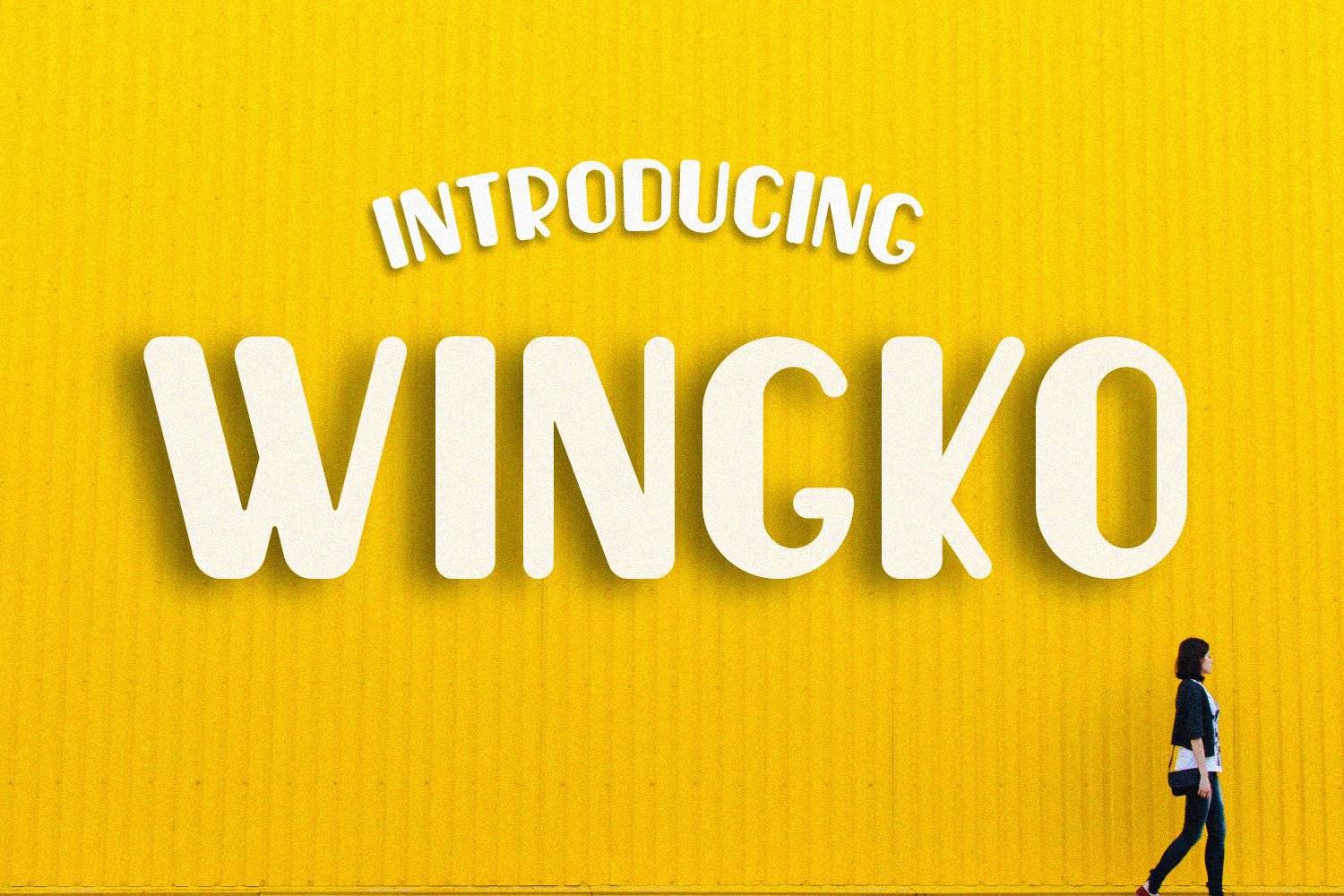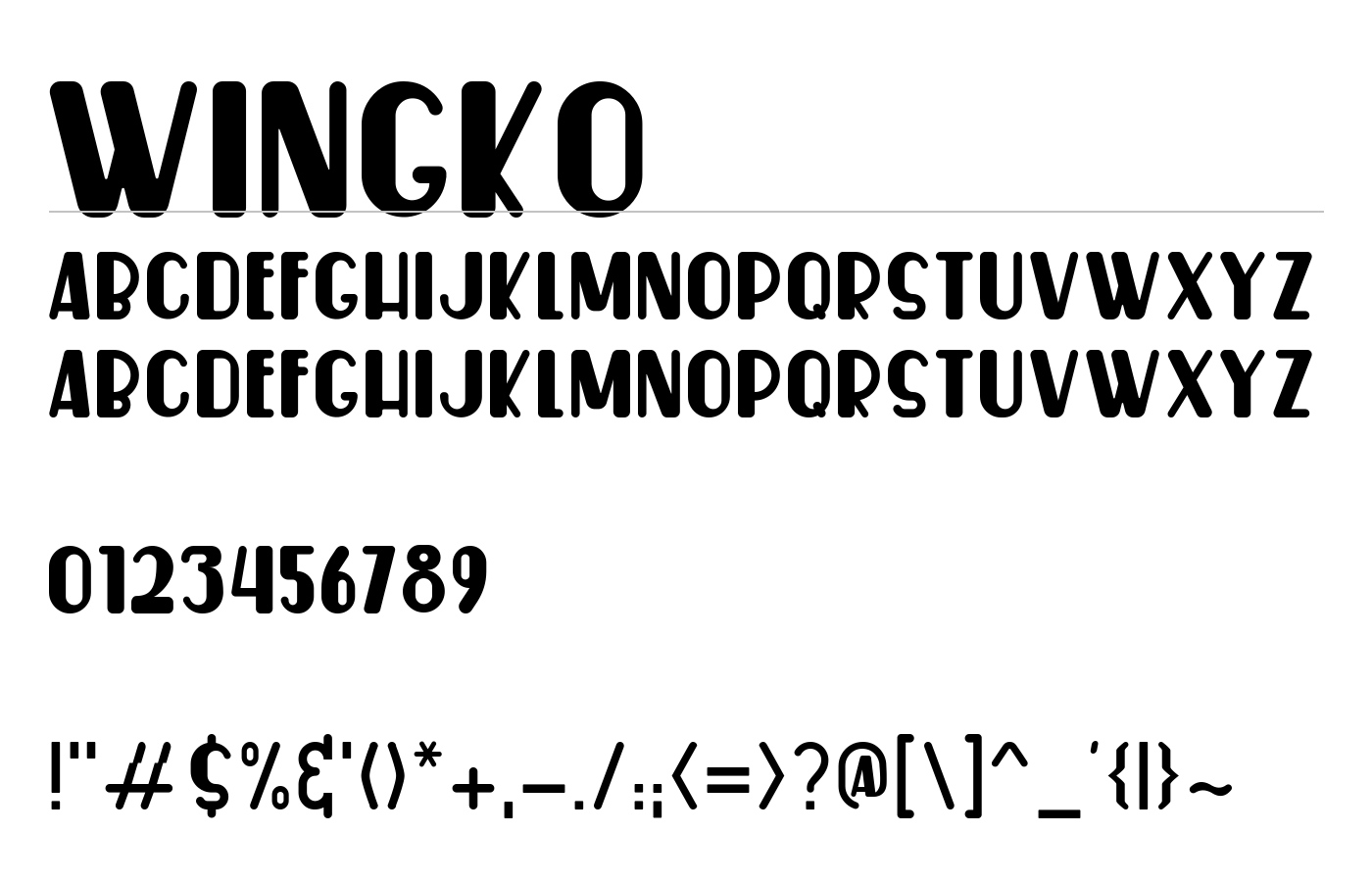
Wingko is a bold, condensed sans serif font with a playful yet modern character. Its rounded terminals, high x-height, and slightly quirky letter shapes give it a friendly and approachable feel, making it well suited for eye-catching logos, headlines, and branding that aims to stand out with a unique personality. This font works best in display settings where its strong presence and distinctive style can shine.
Wingko Font
About Wingko Font
| Designer | Sabertype Studio |